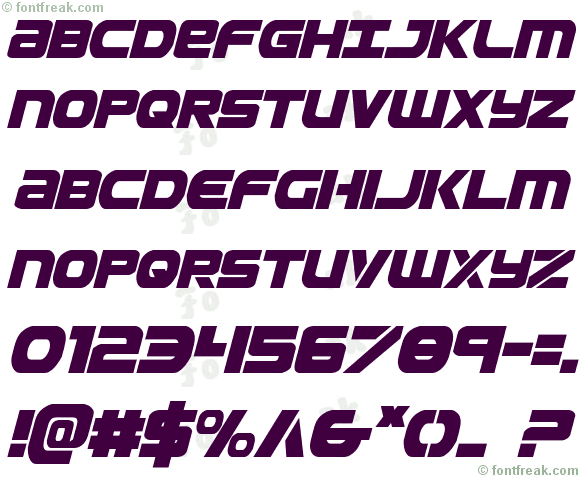
Ozda Expanded Italic
Ozda Expanded Italic is a striking display font designed by Daniel Zadorozny in 2014, falling under the category of sans-serif typography. This font boasts a unique italicized style that enhances its visual appeal with a bold, modern twist. The stroke weight is consistently thick, giving it a robust presence, while the letterforms exhibit a slight contrast that adds dynamism. The expanded nature of the font contributes to its spacious, airy feel, making it an excellent choice for impactful headlines and titles.
One of the most compelling use cases for Ozda Expanded Italic is in graphic design projects that require a contemporary touch, such as movie posters and album covers. Its bold character makes it suitable for branding elements, where standing out is essential. Additionally, this font can be effectively used in restaurant menus or promotional materials for events, where a stylish yet legible typeface is crucial. Target audiences include graphic designers looking for distinctive typography, small business owners wanting to enhance their branding, and content creators seeking a modern font for their digital projects.